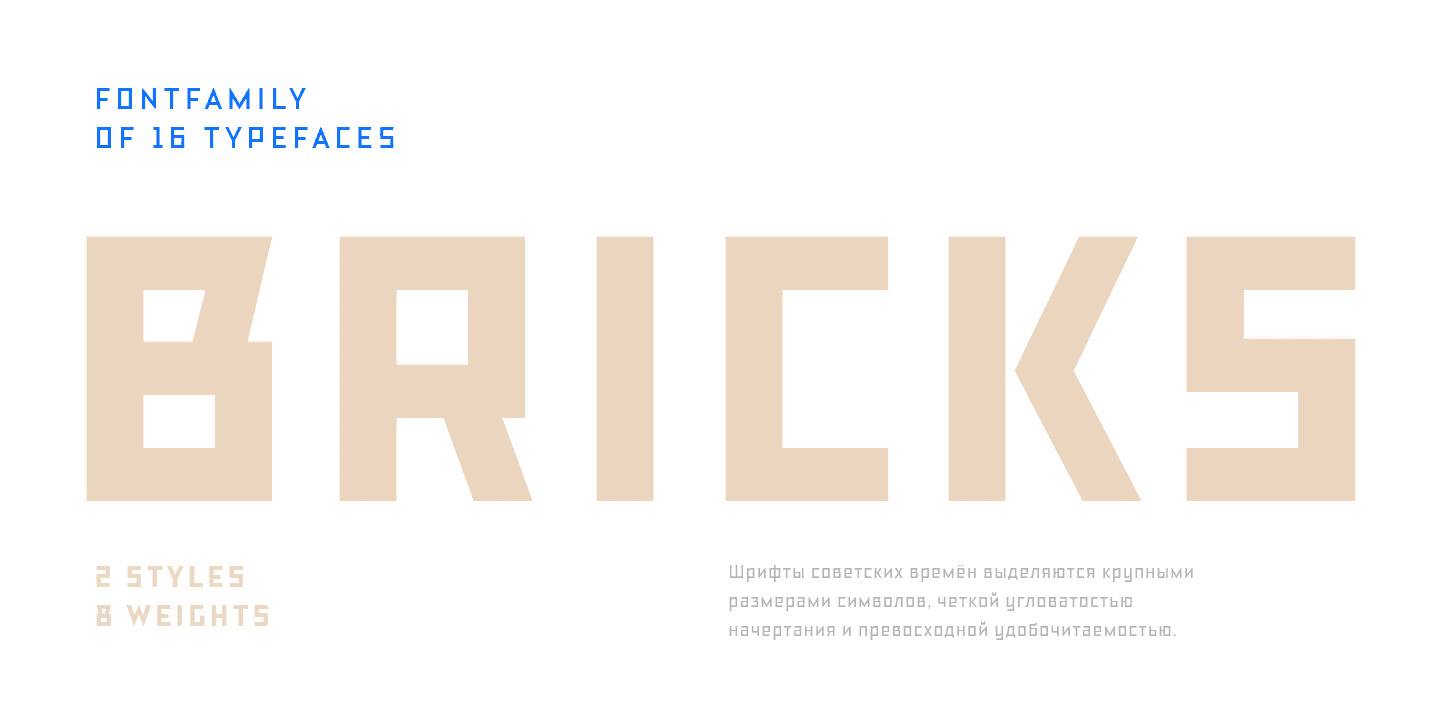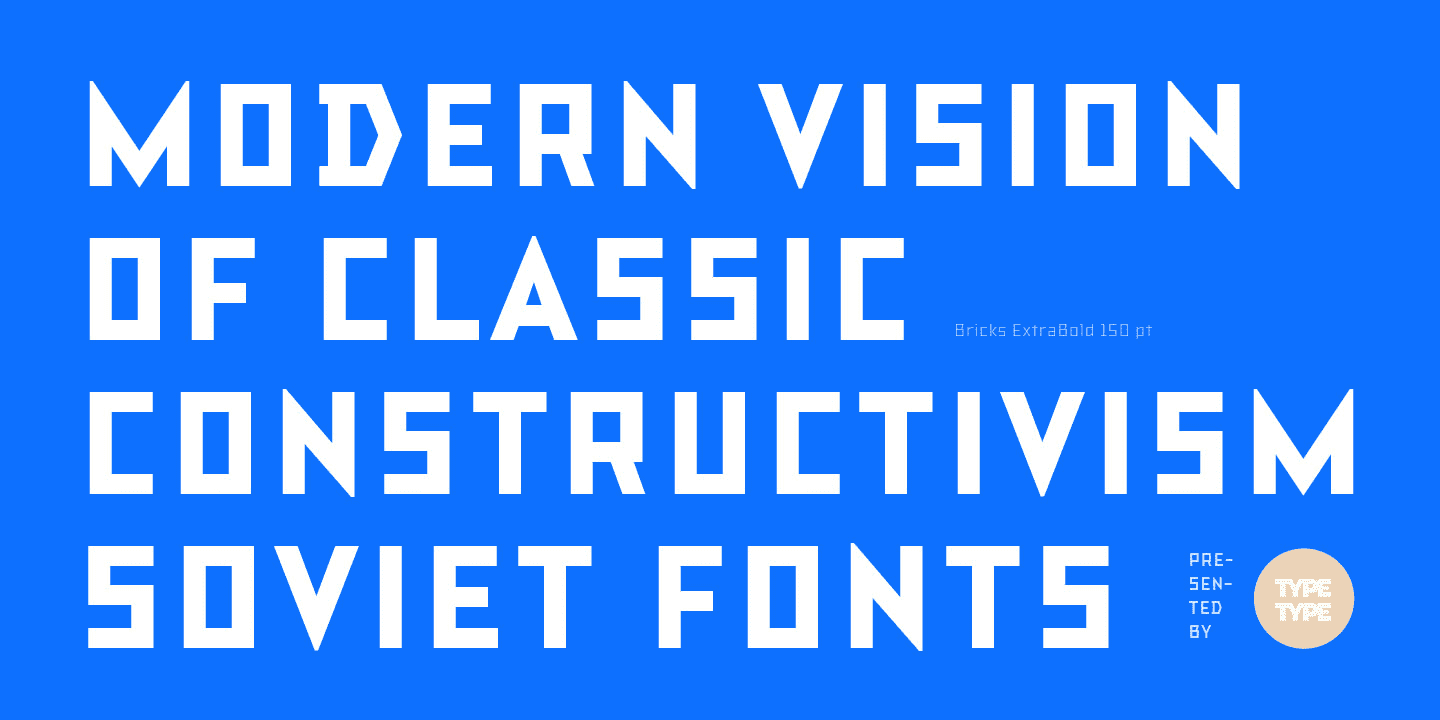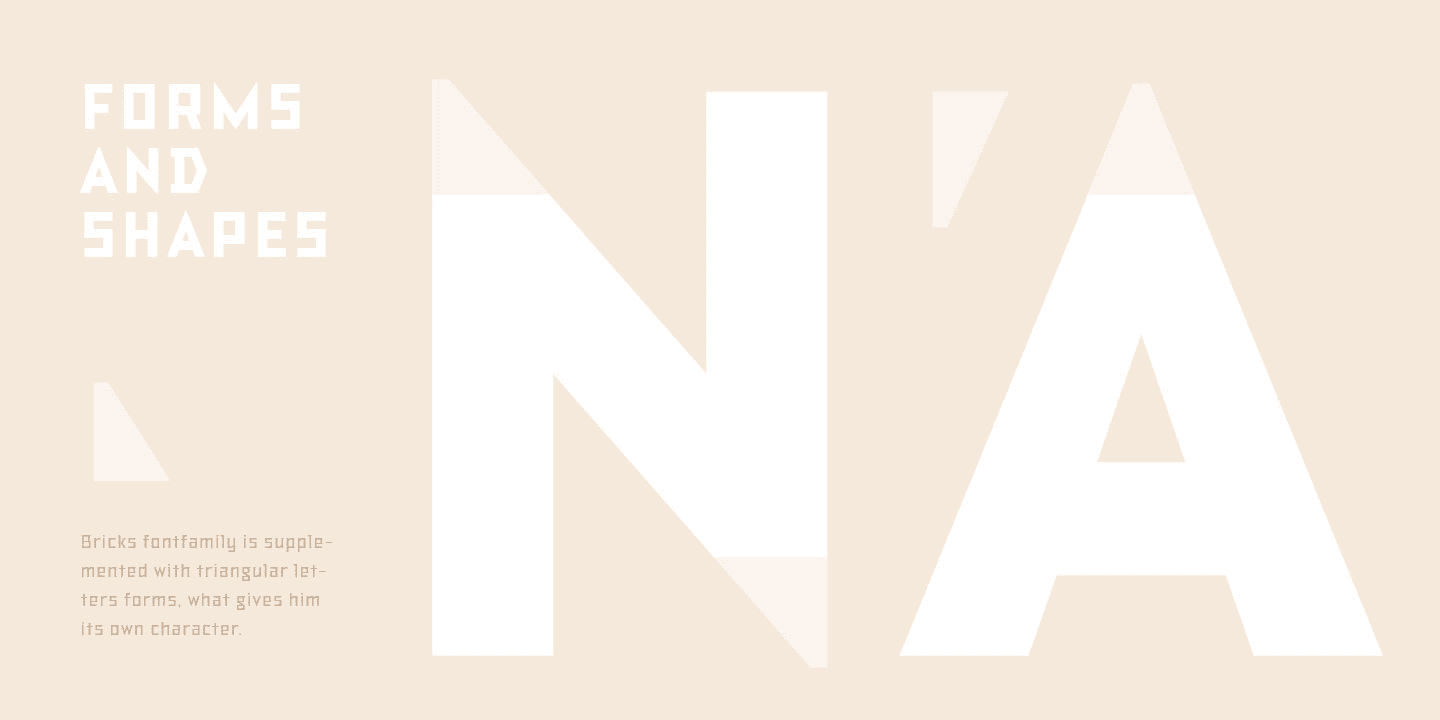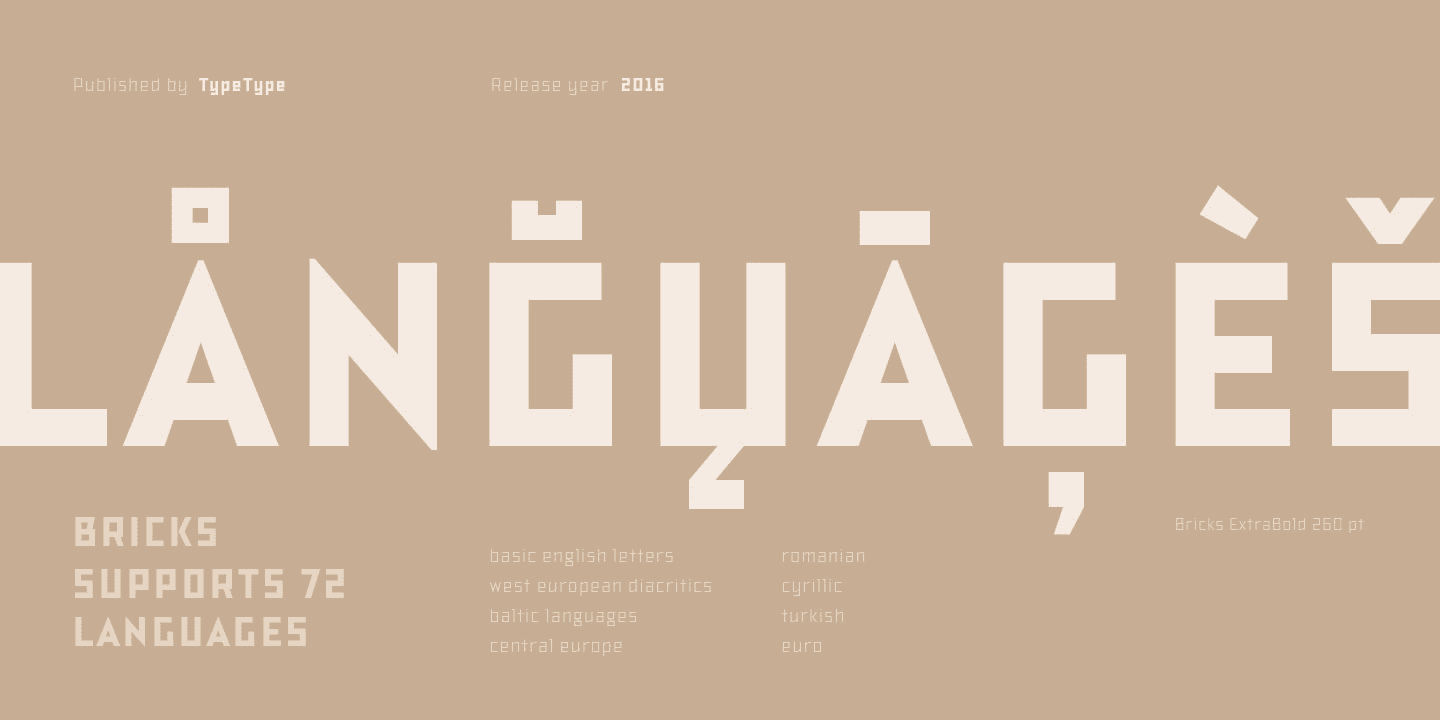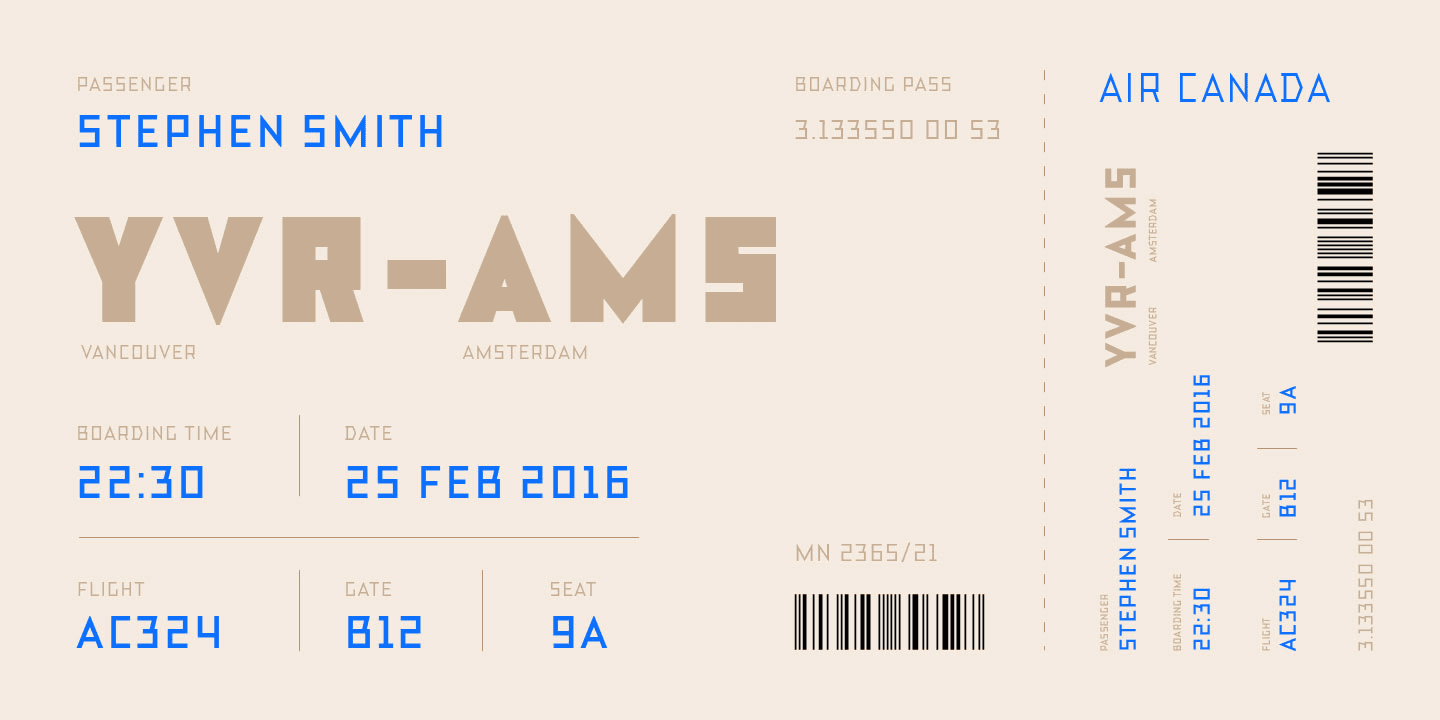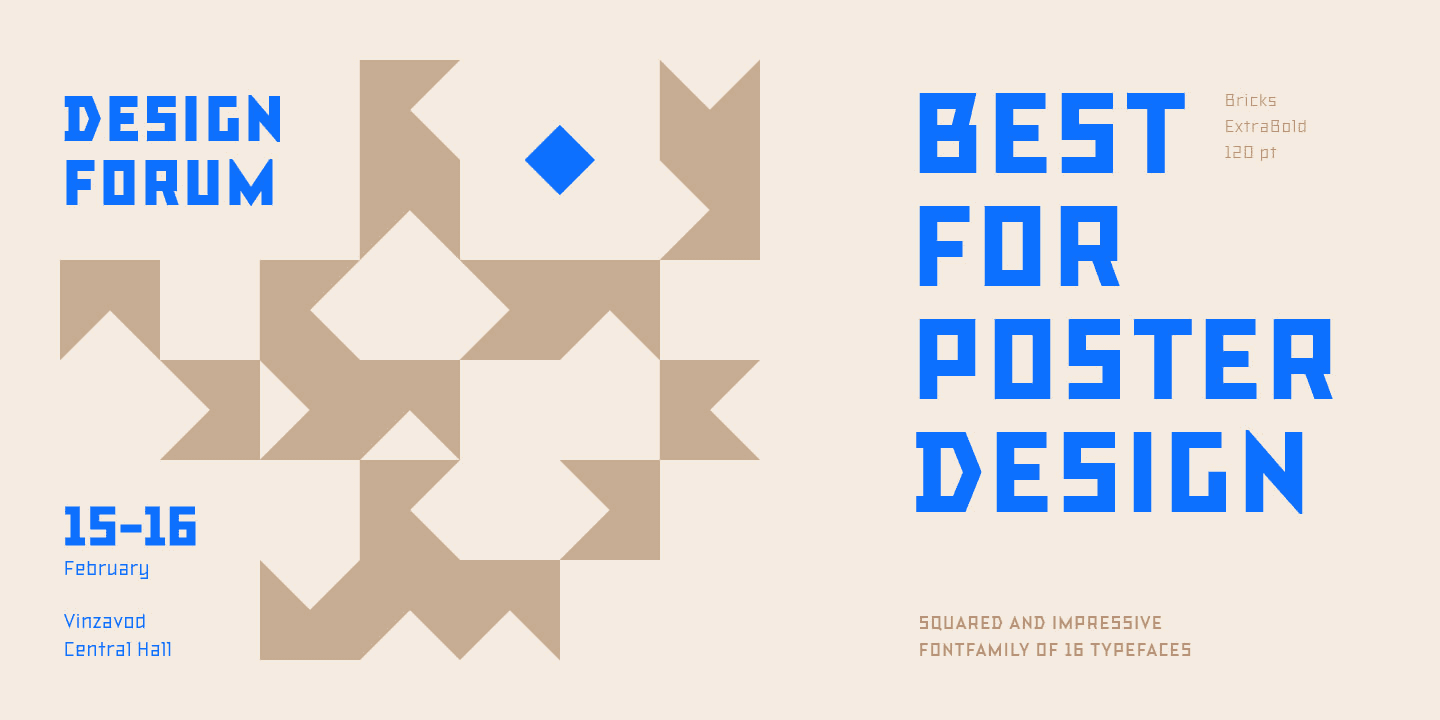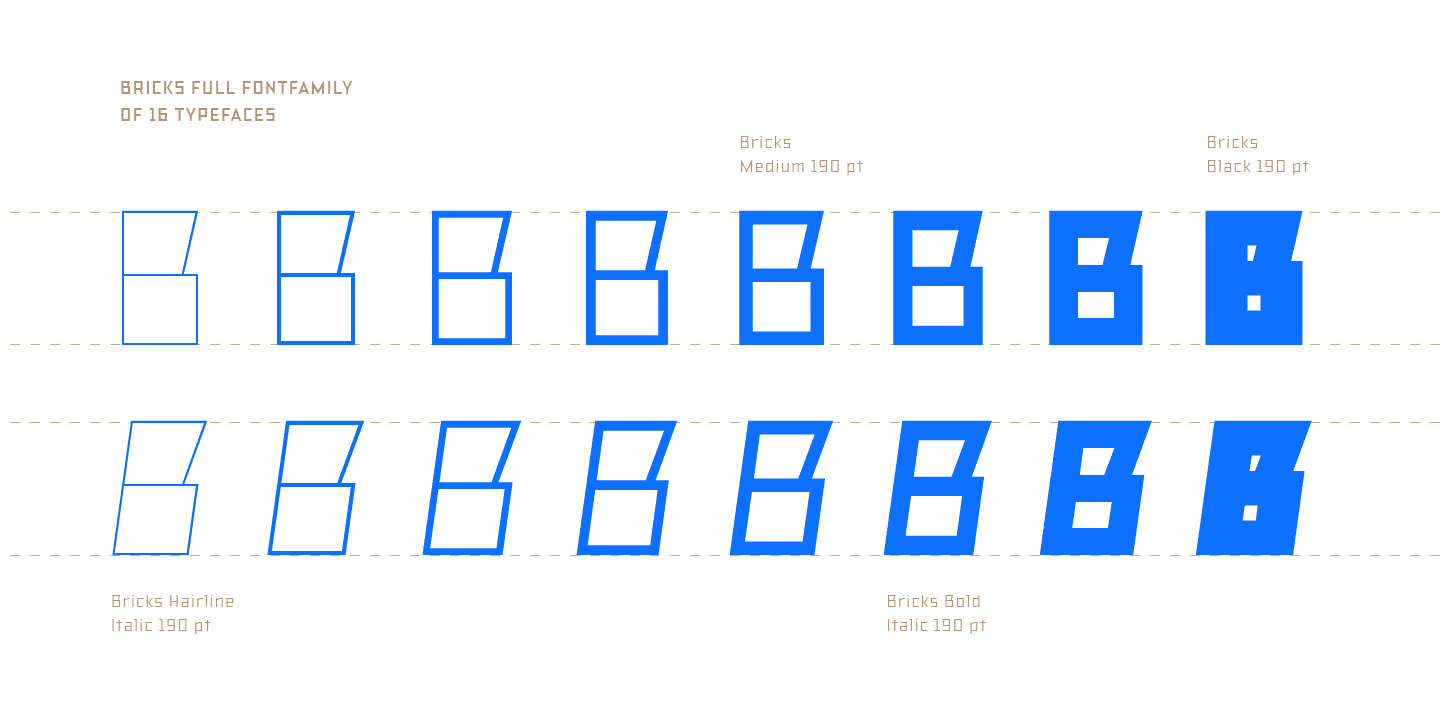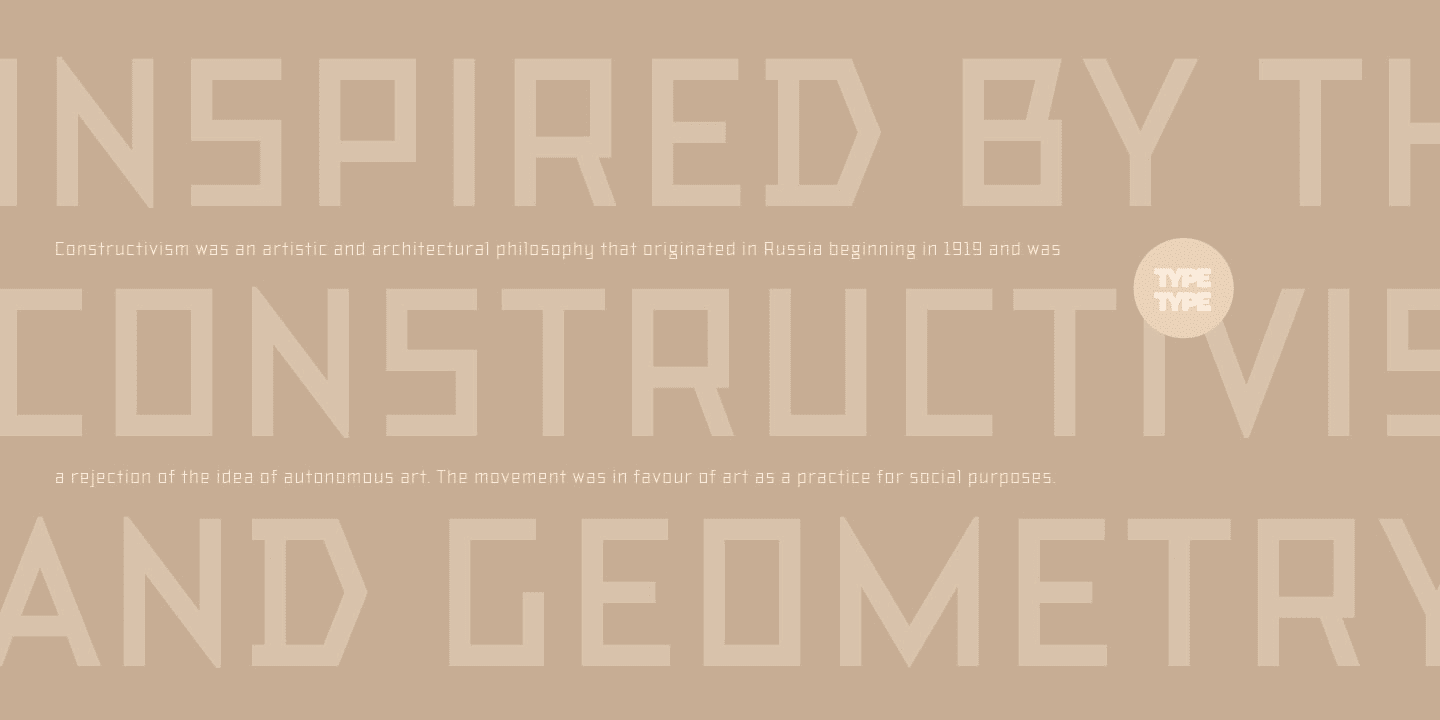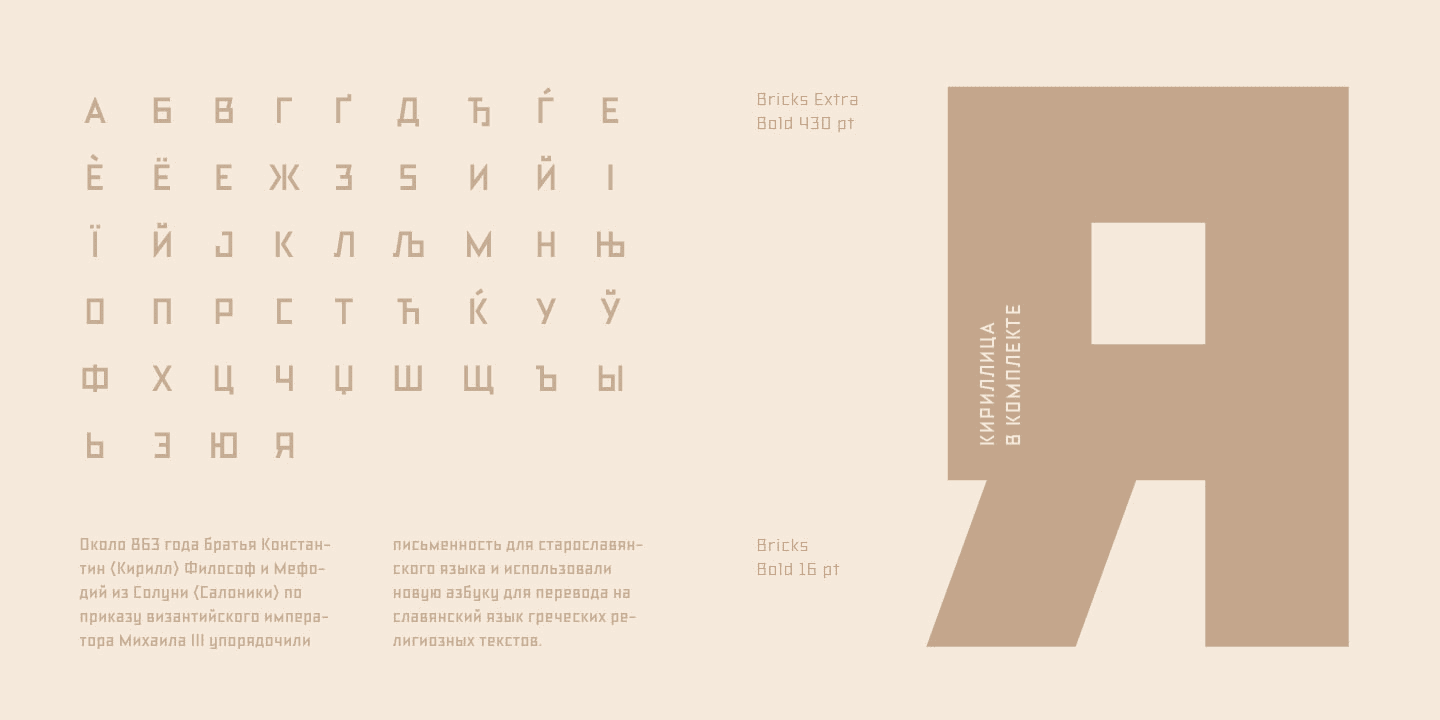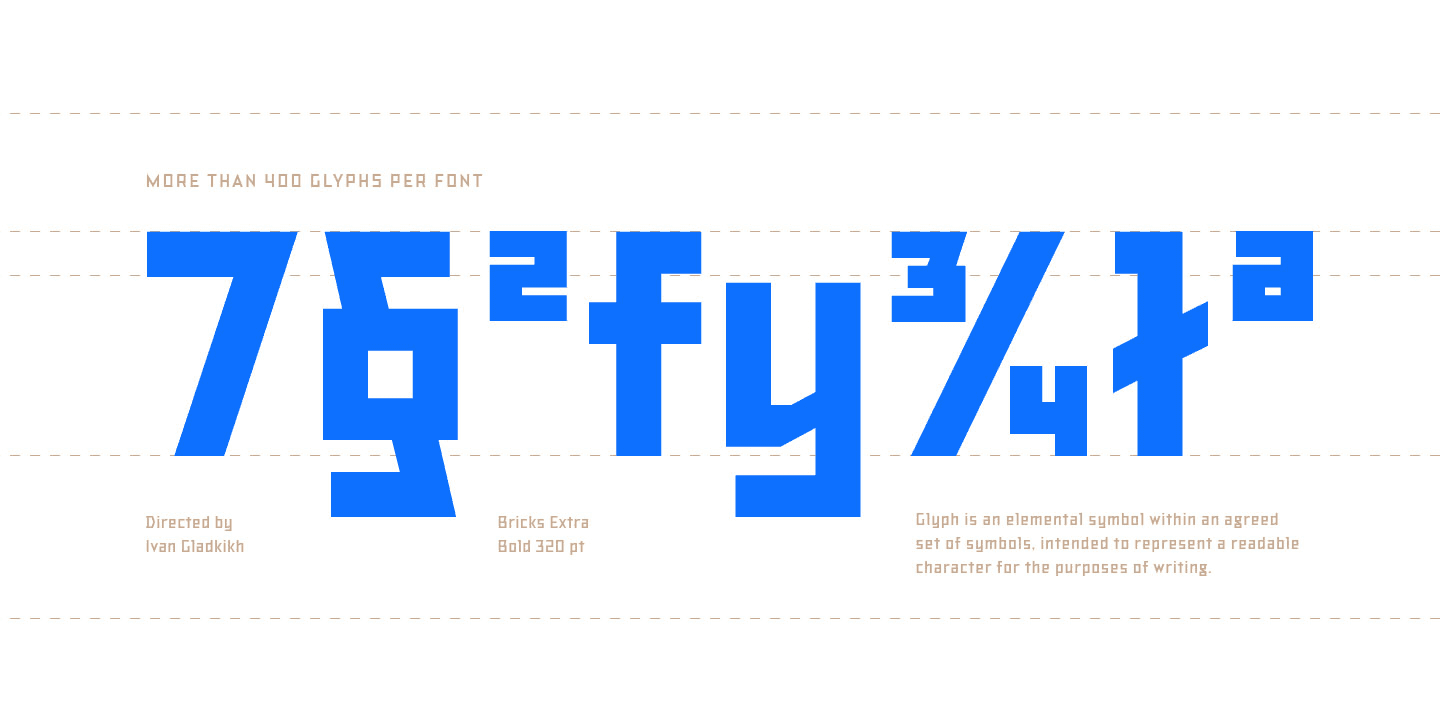
TT Bricks v. 1-010
Do you love the early Soviet visual culture as much as we do? We’ve tried going back a hundred years and rethinking the constructivist era. We’ve created an extensive fontfamily that consists of the simplest triangle and rectangle forms. TT Bricks fontfamily includes 16 typefaces: Hairline, Thin, Light, Regular, Medium, Bold, ExtraBold, Black and Italics.
Regardless of its Soviet past, TT Bricks is a very fresh and visually powerful fontfamily that perfectly fits the contemporary media landscape. TT Bricks is perfect for mobile apps and corporate websites, as well as for printed press layout. Thanks to the exaggeratedly simple forms of all signs, TT Bricks looks great in very small type sizes.
Language Support:
Basic Latin/English letters West European diacritics Euro,
Central Europe, Baltic, Turkish, Romanian, Cyrillic